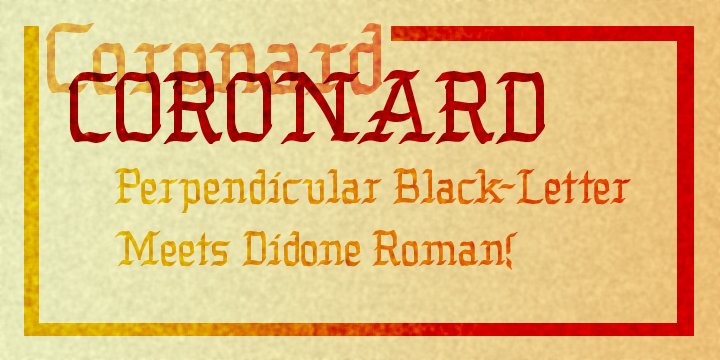
Coronard is another of Greater Albion’s explorations of ‘Evolutionary’ type. In this case we imagine a transition from Blackletter to Roman forms.
Coronard shows that posited transition in all its simple calligraphic splendor, providing a beautifully legible face for invitations and certificates, as well as for lettering and signage that needs to be readable but to have a gothic flair.